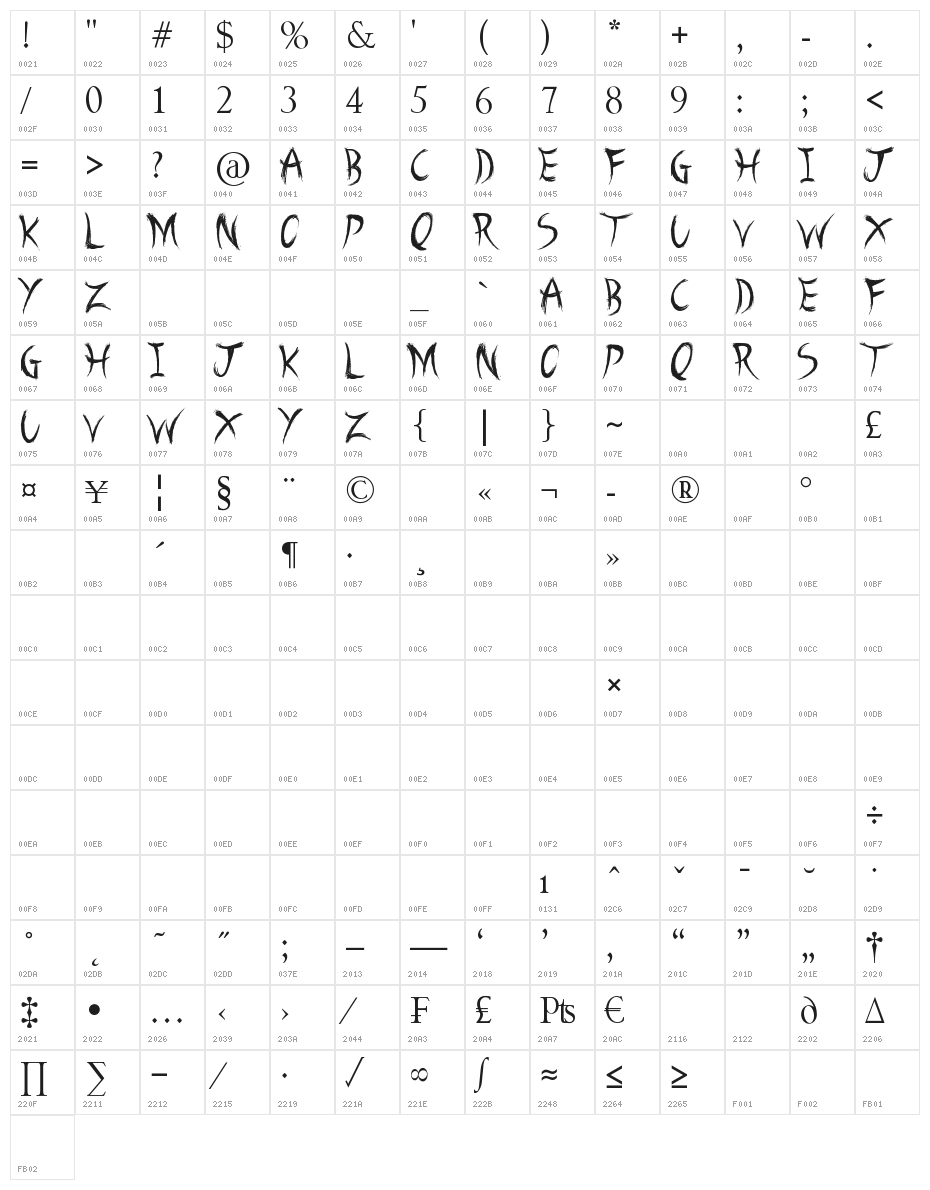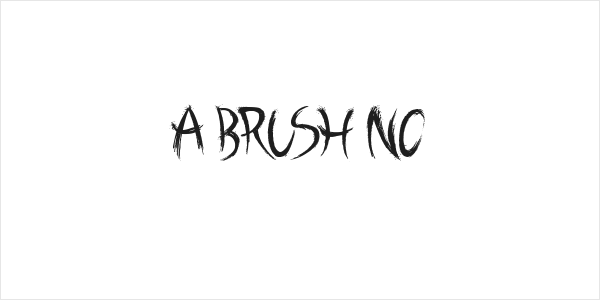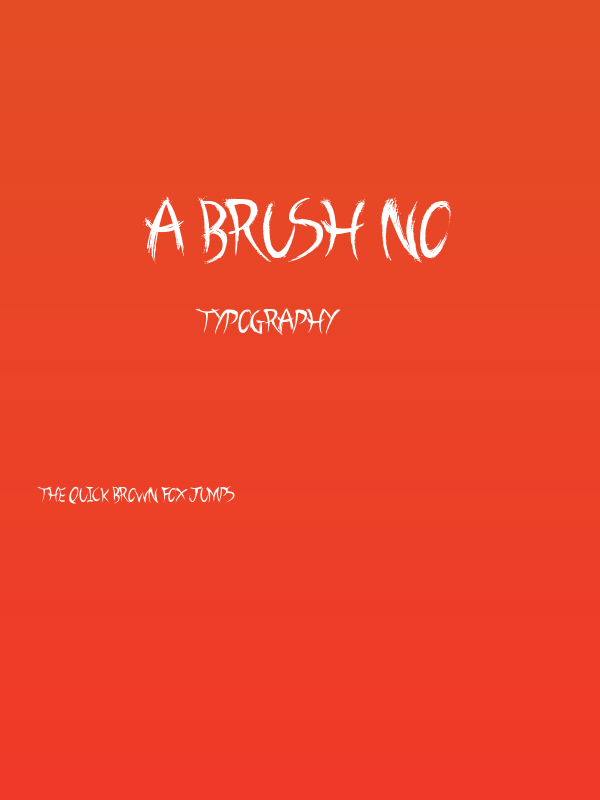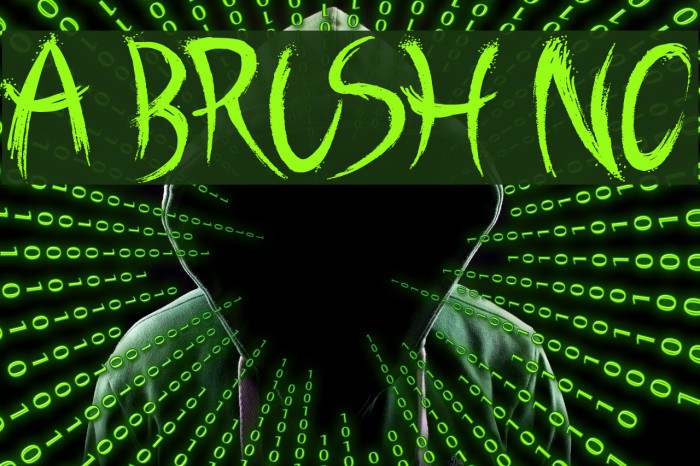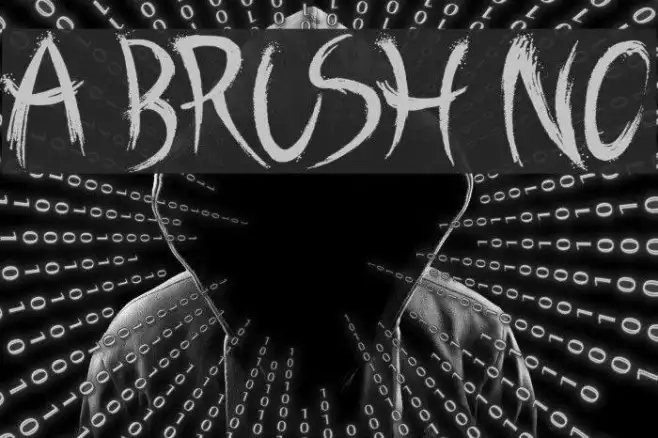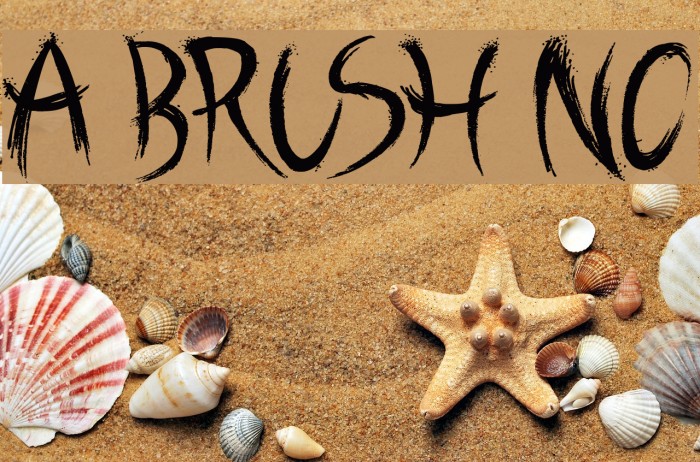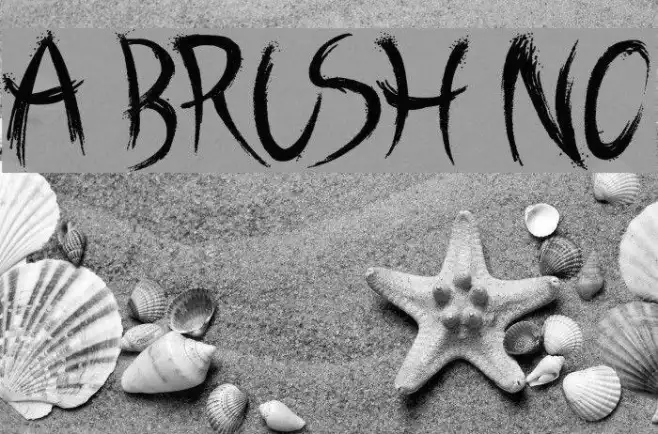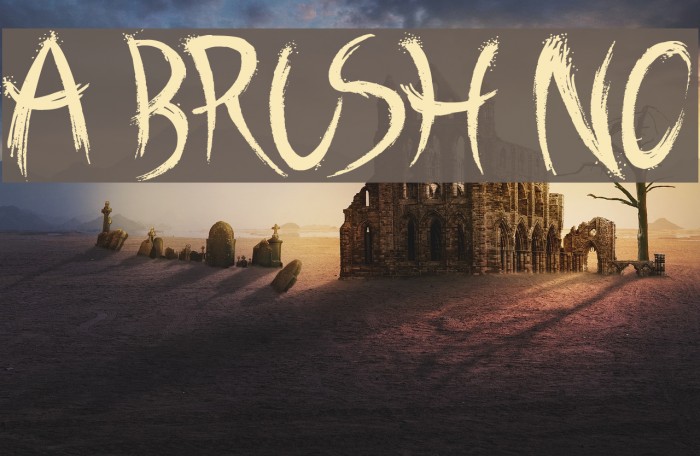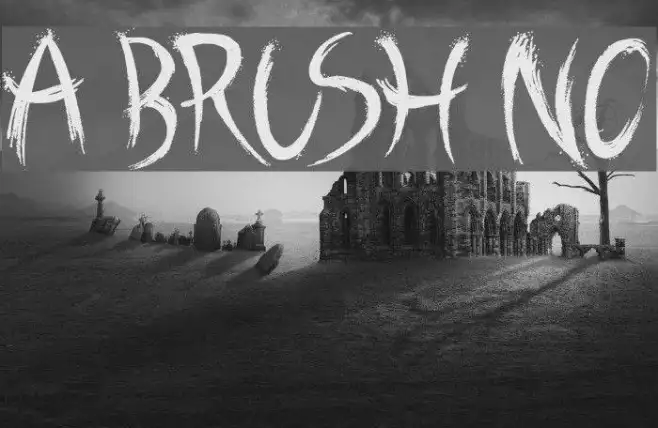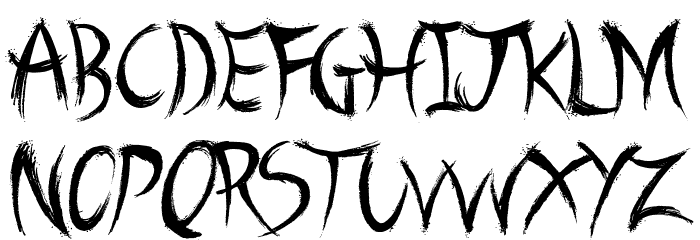
A Brush No Font
A Brush No Description
This font features a dynamic and expressive brush style, characterized by its bold and sweeping strokes that convey a sense of movement and energy. The letters have a hand-painted appearance, with varying thicknesses that add depth and texture. The uppercase and lowercase letters maintain a consistent style, with sharp edges and pointed tips that enhance the dramatic flair. Numbers and special characters are equally bold, ensuring a cohesive look across all text elements. This font is ideal for projects that require a bold, artistic touch, such as posters, album covers, or branding materials that aim to capture attention and convey creativity.
| Proposed Projects | Ideal for posters, album covers, branding materials, and any project needing a creative, attention-grabbing font. |